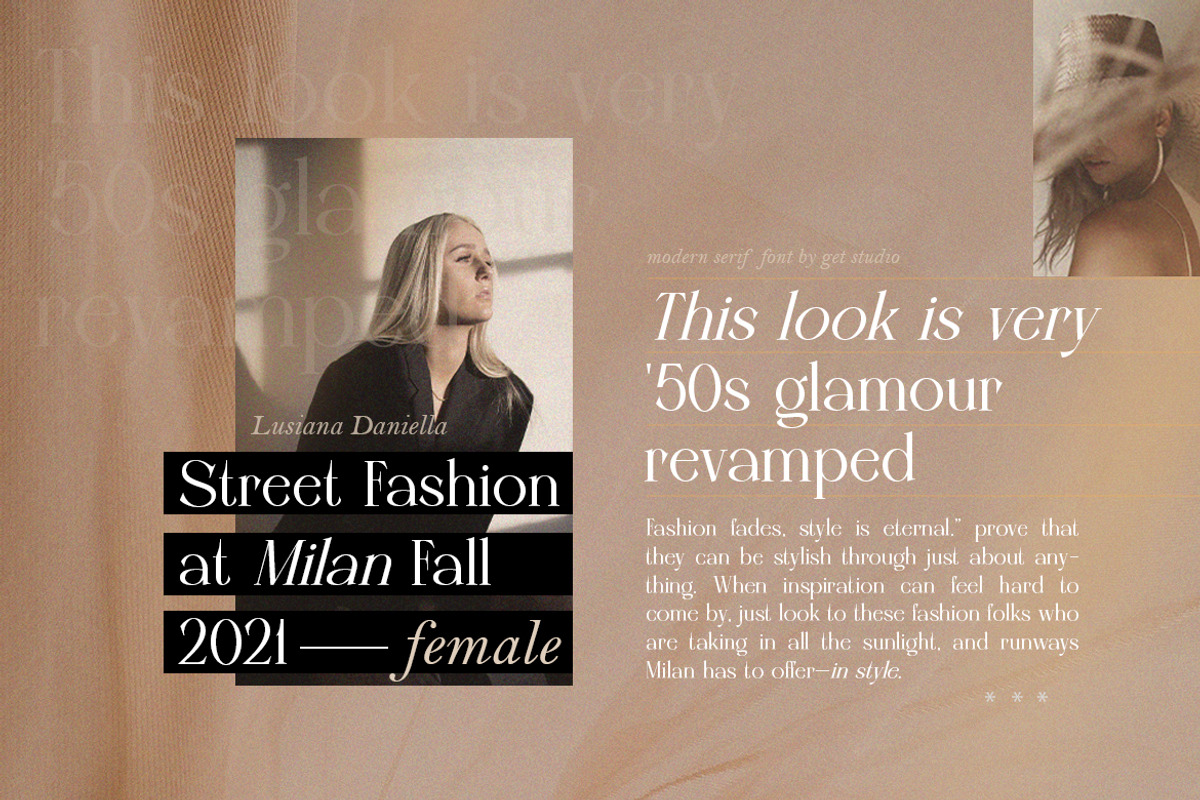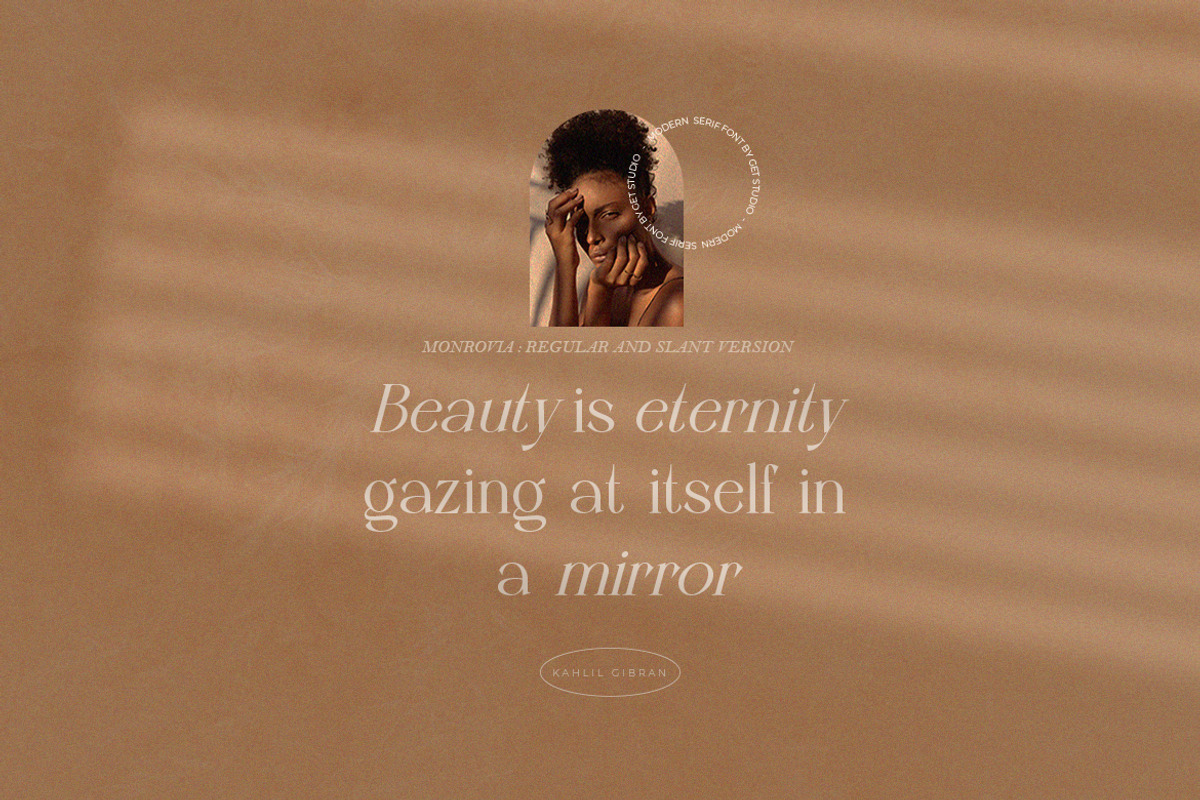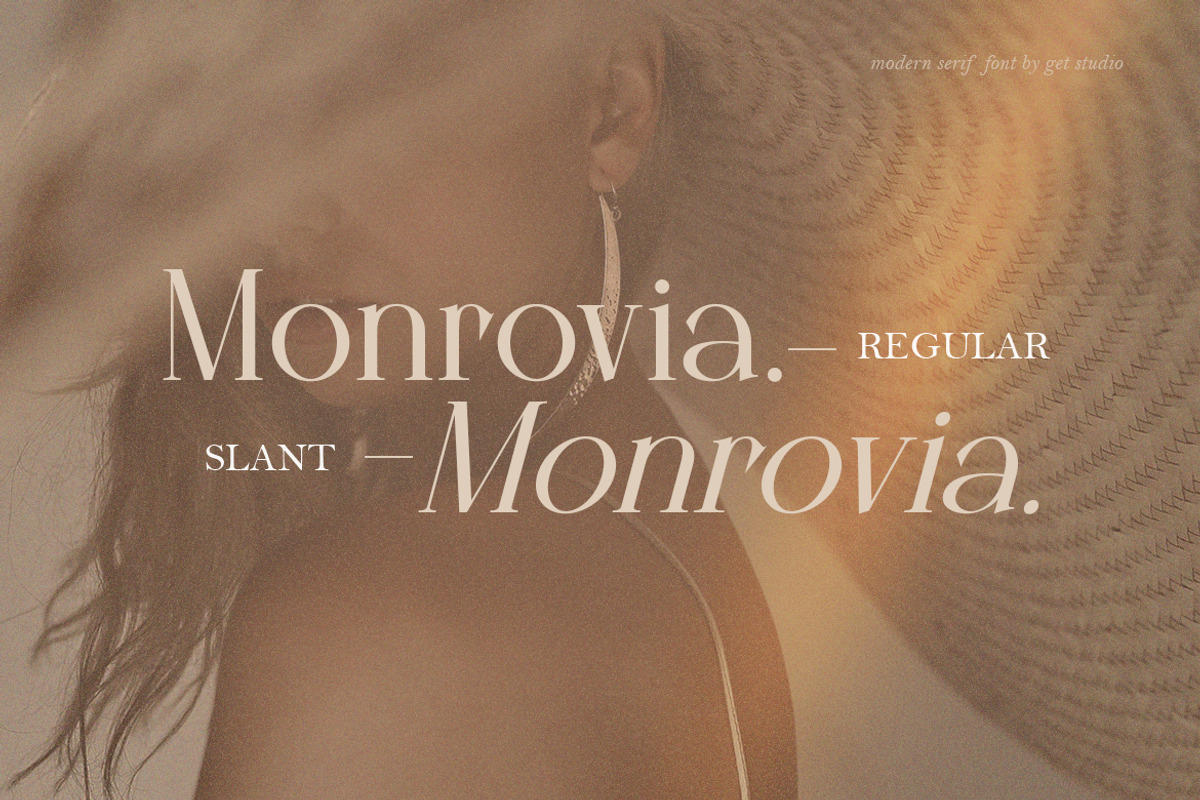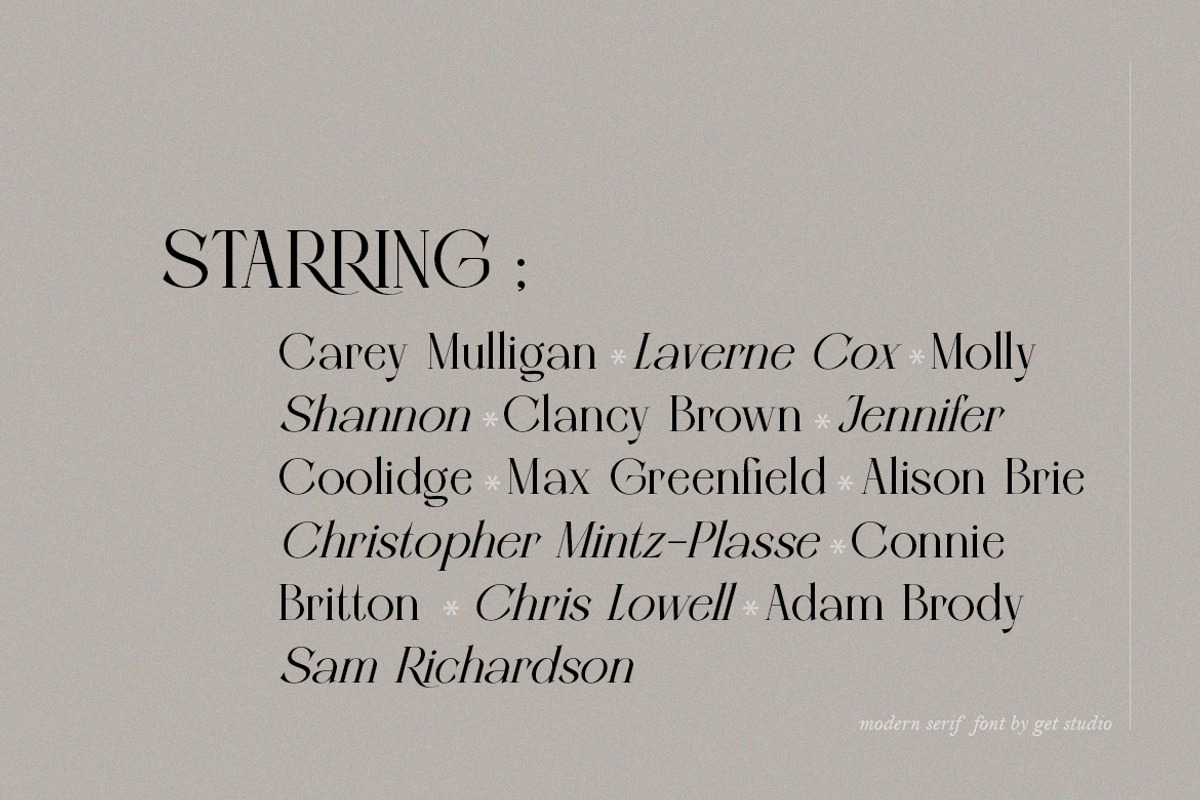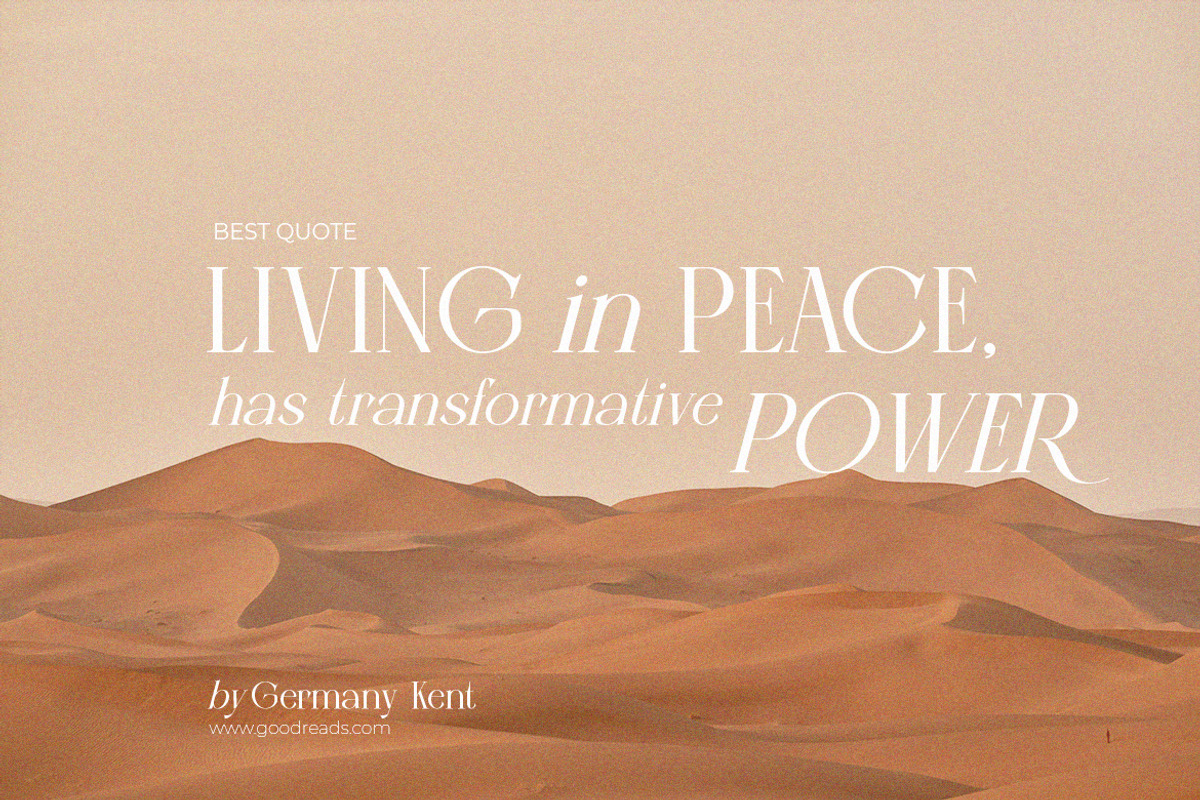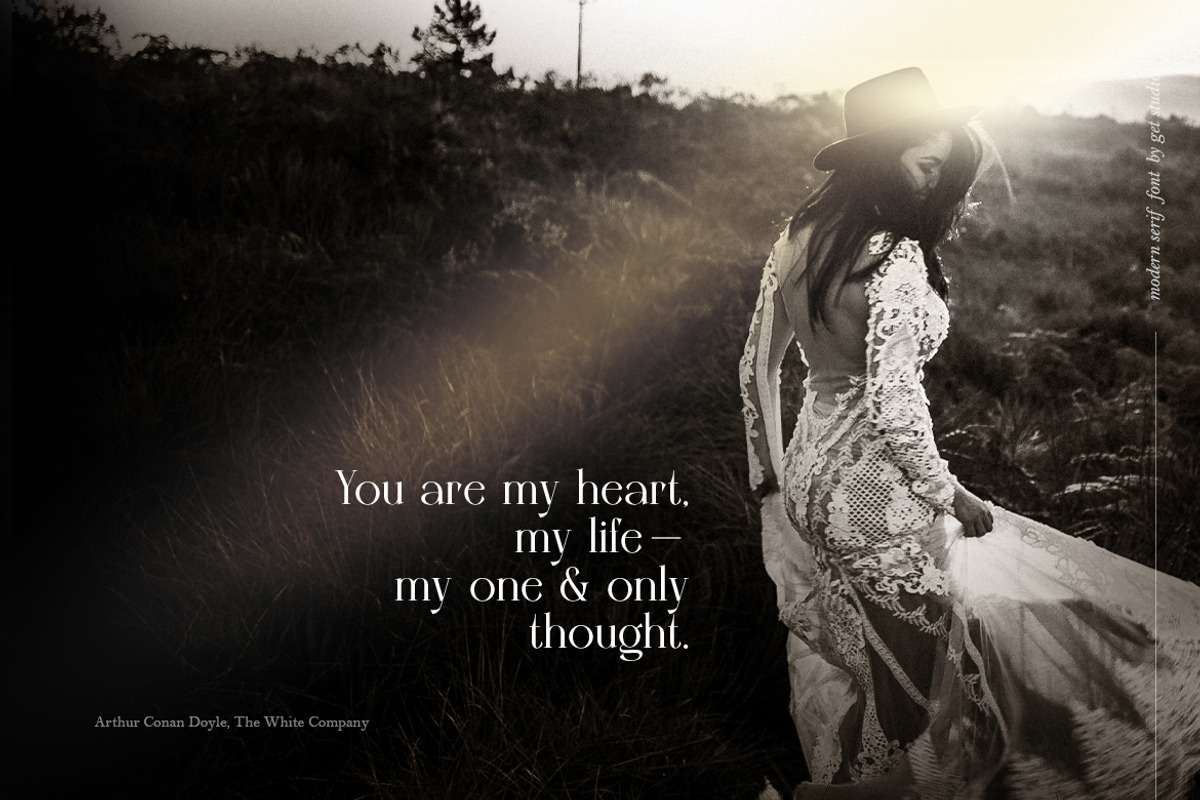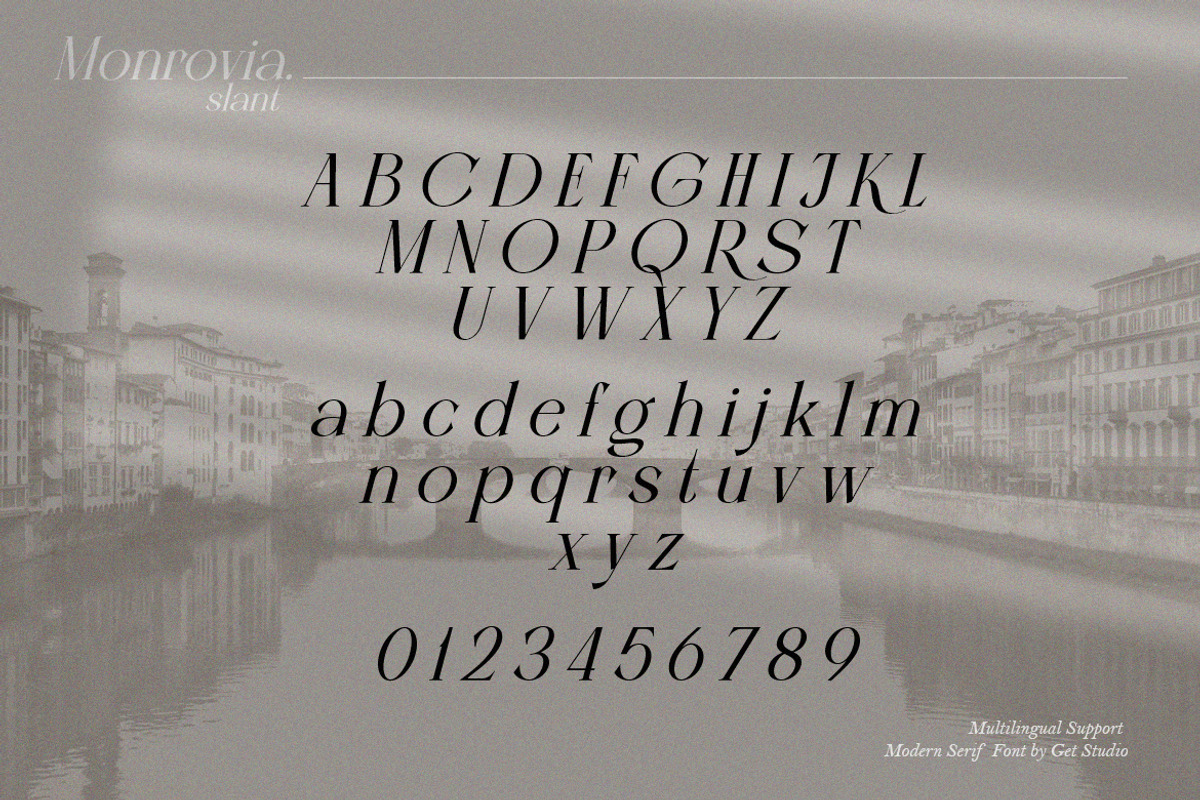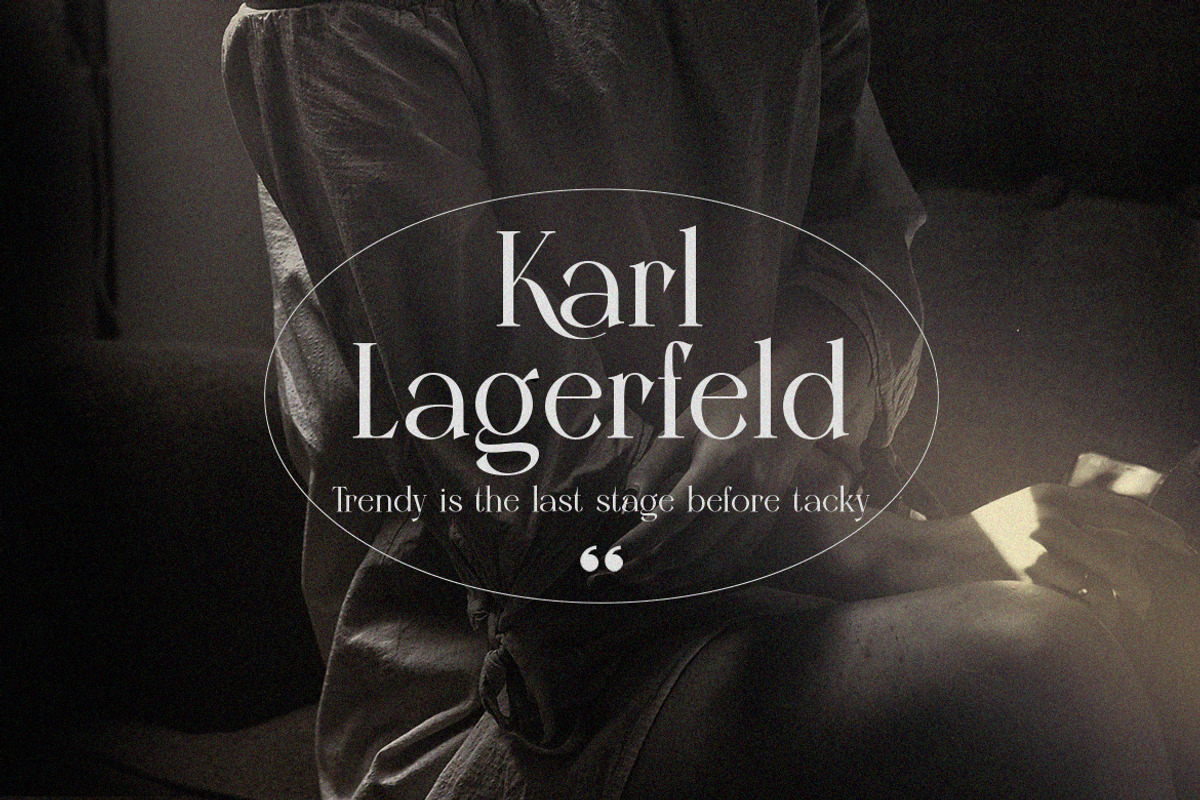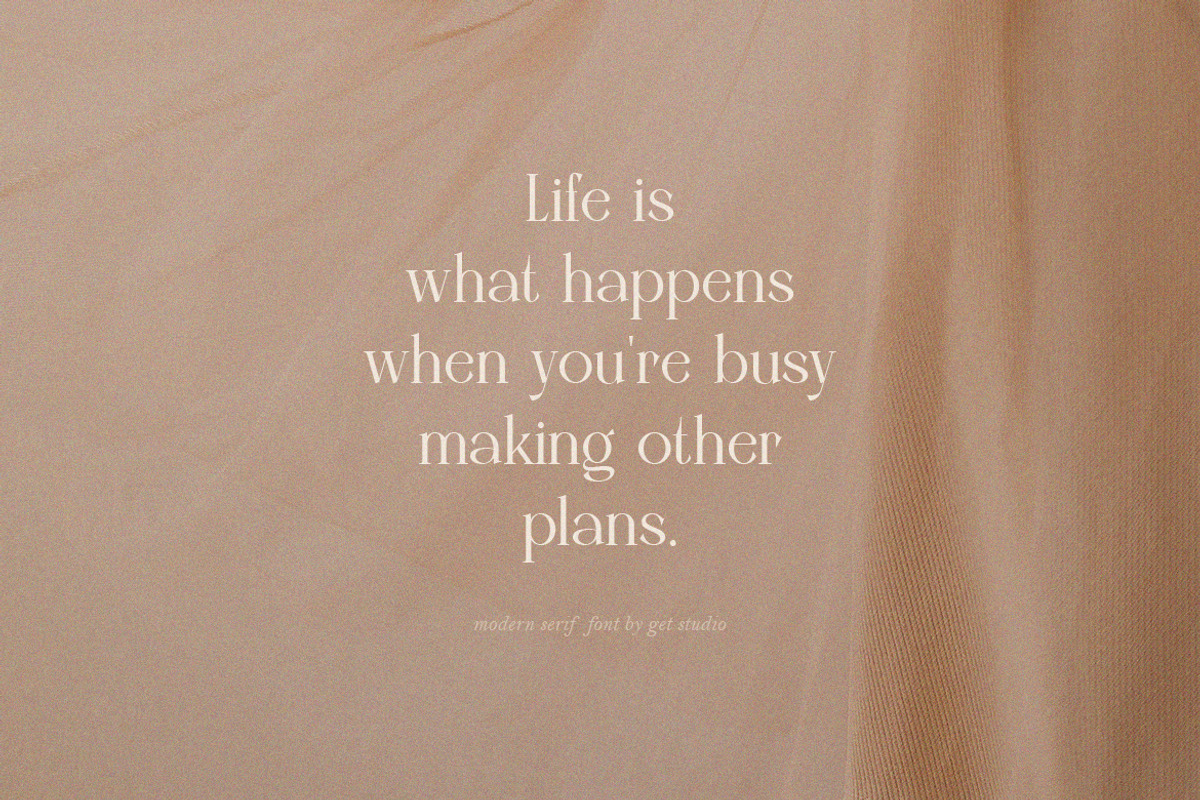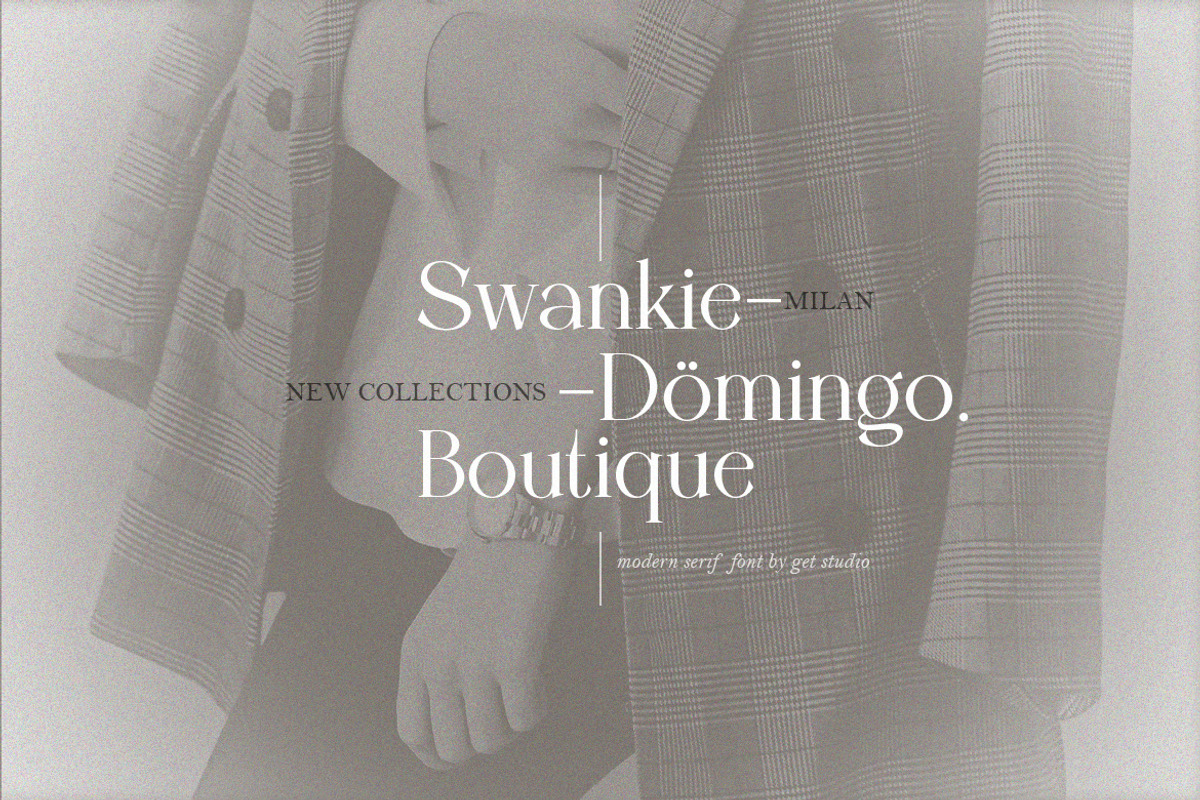
Monrovia - Modern Serif Font
Monrovia is an elegant display modern serif with chic characters. It comes with unique lower and uppercase plus ligatures, punctuation & multilingual letters.
You can use it as a lifestyle design and brandings such as logos, title, social media, magazine, and more